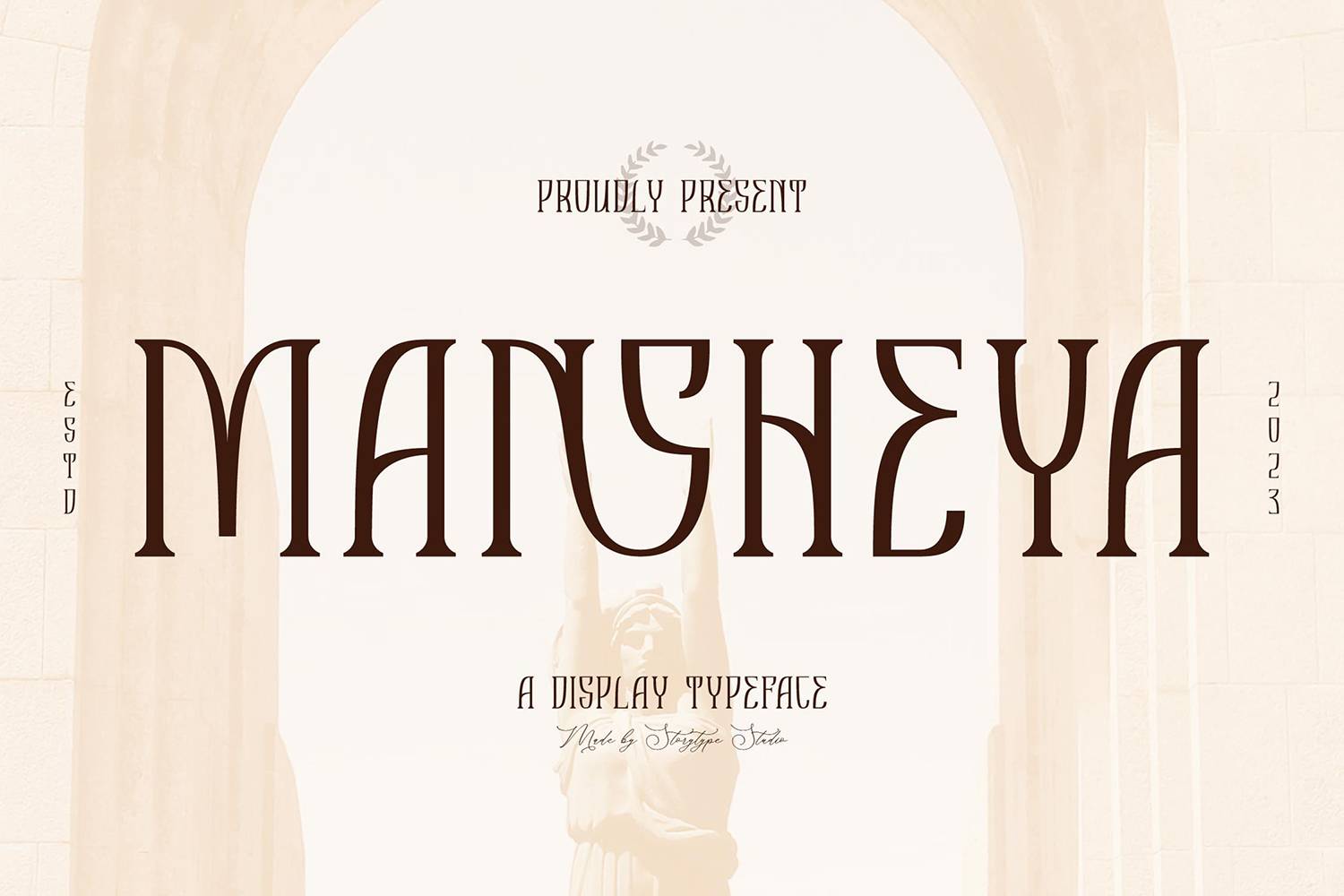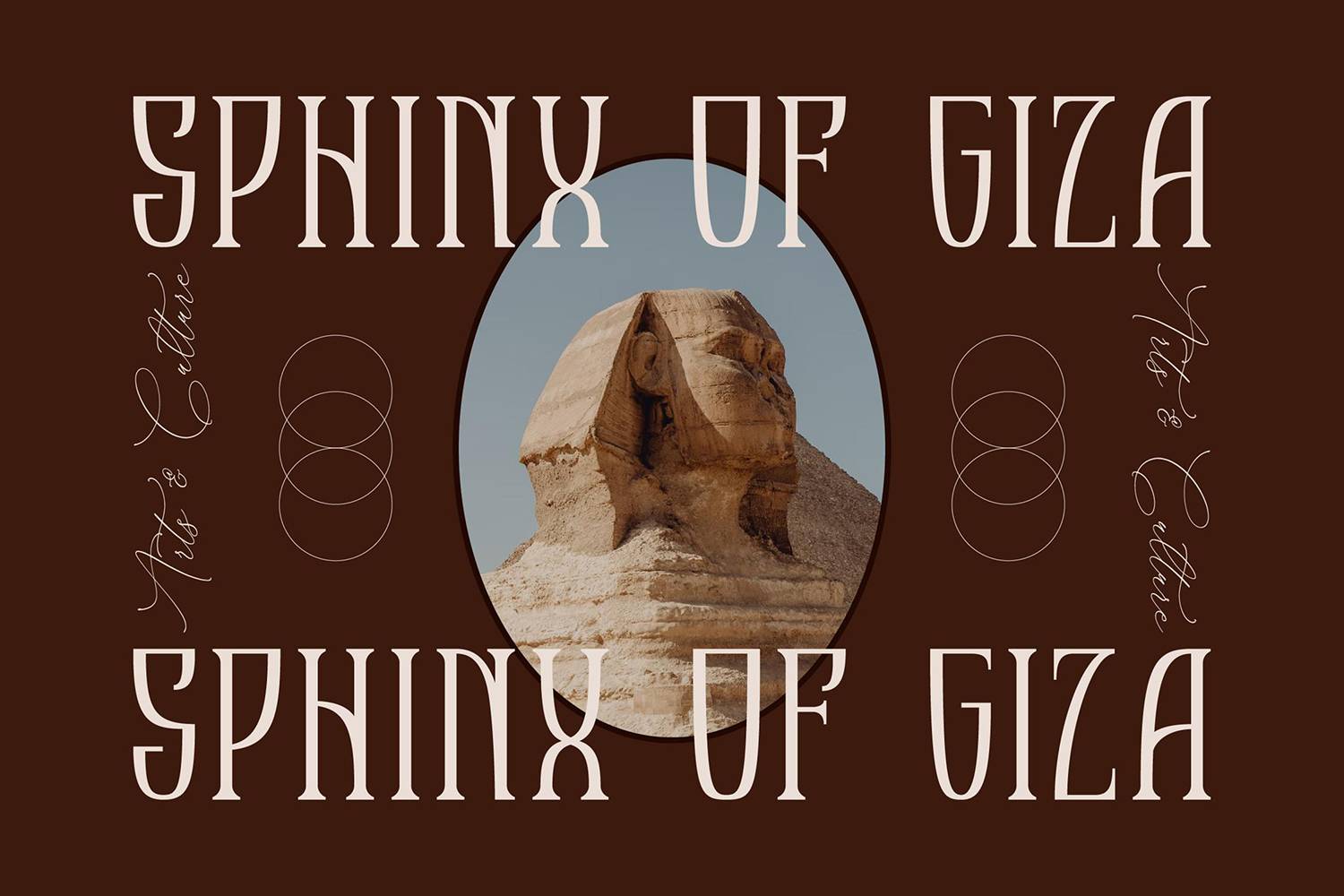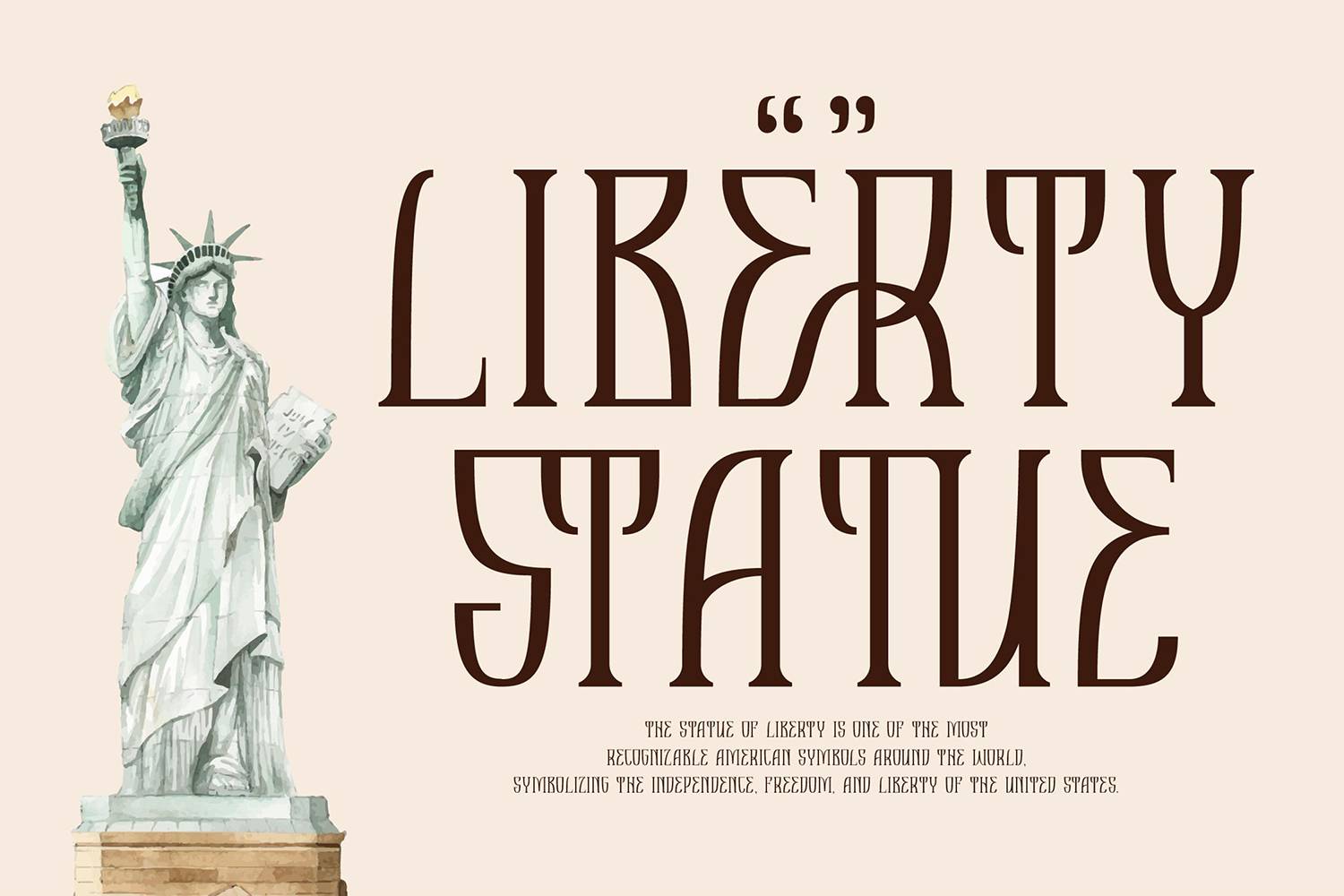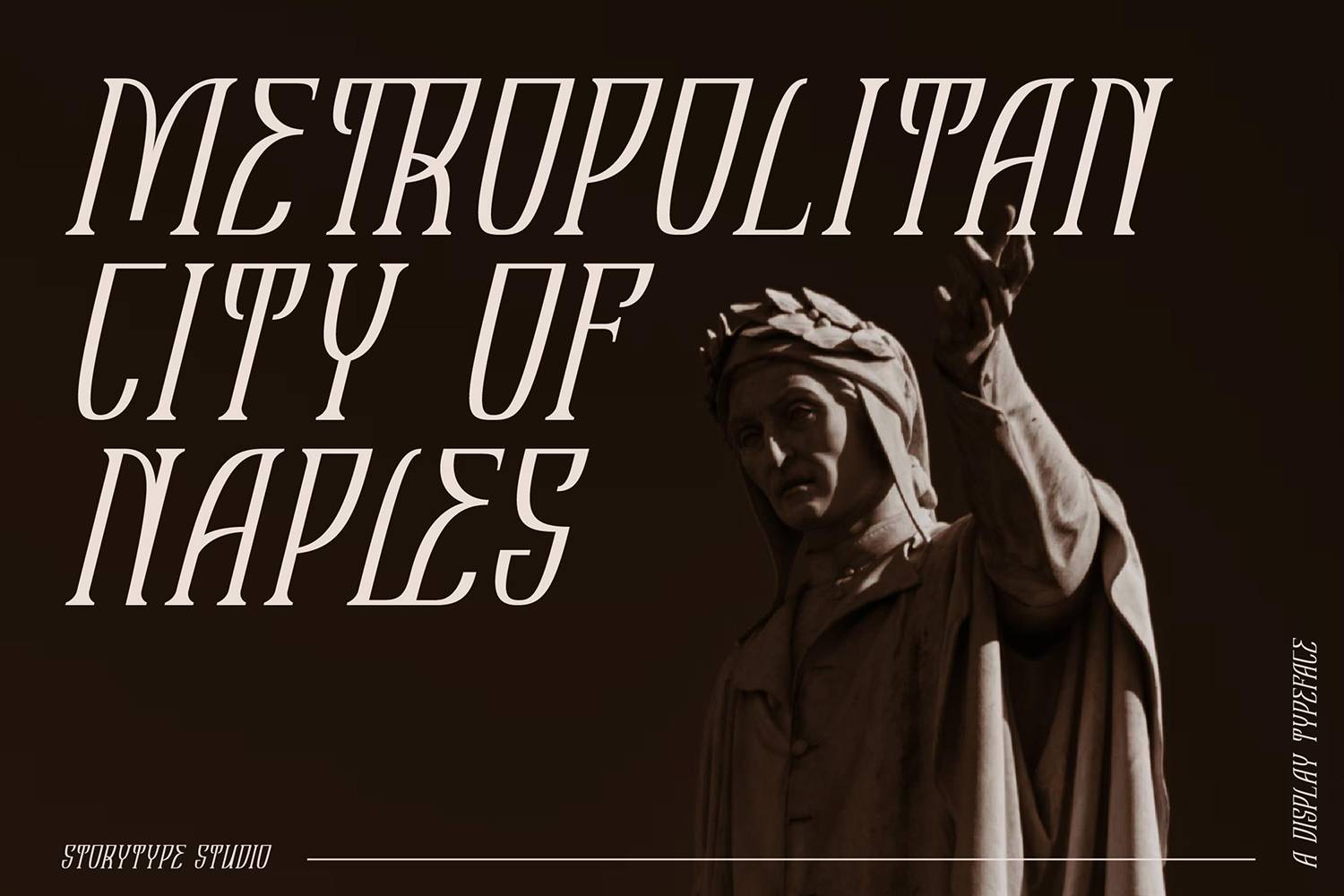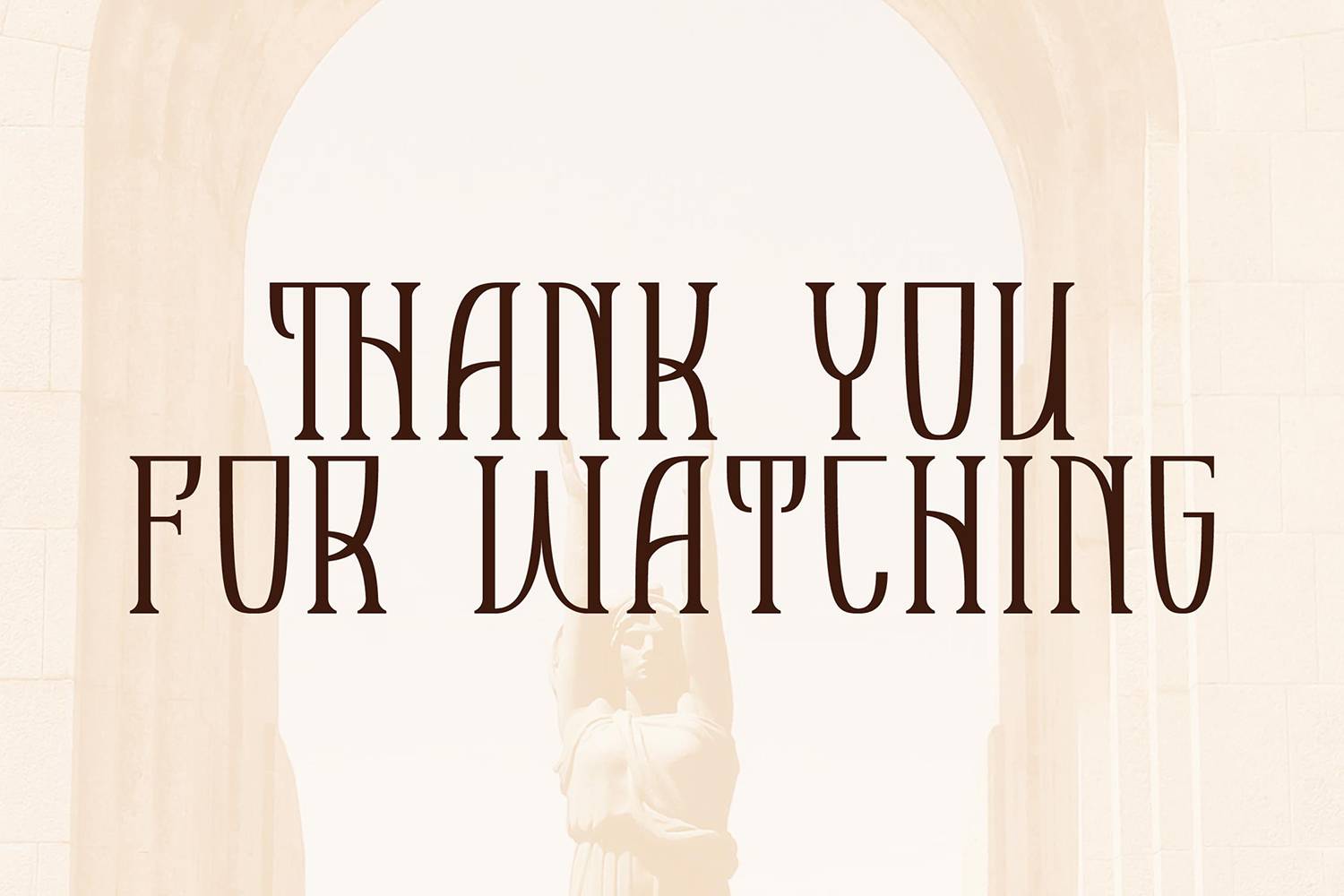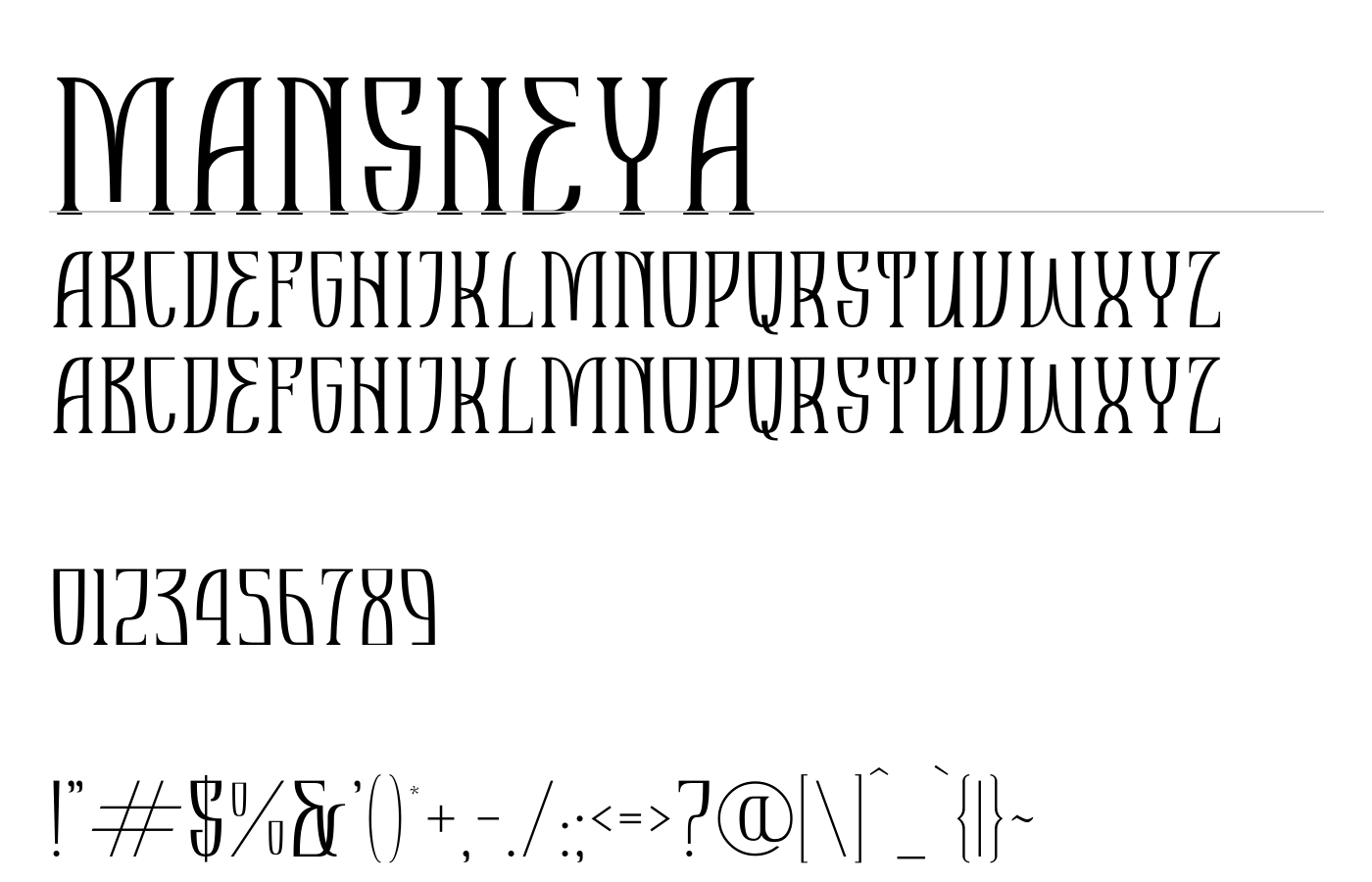
Mansheya is a tall, narrow serif font with elegant, high-contrast strokes that create a stylish and modern vintage feel. Its unique letterforms and delicate serifs make it ideal for attention-grabbing headlines, logos, and branding that aim for a sophisticated yet distinctive look. This font works best in creative designs where a refined, artistic touch is desired.
Mansheya Font
About Mansheya Font
| Font family | Mansheya Font |